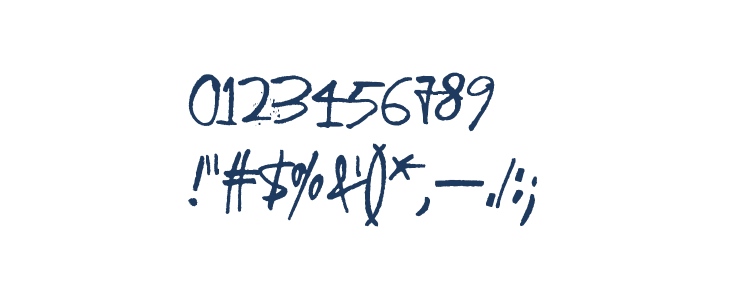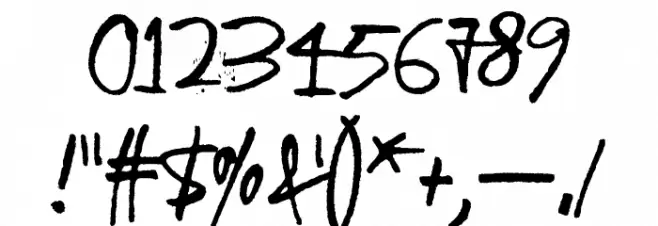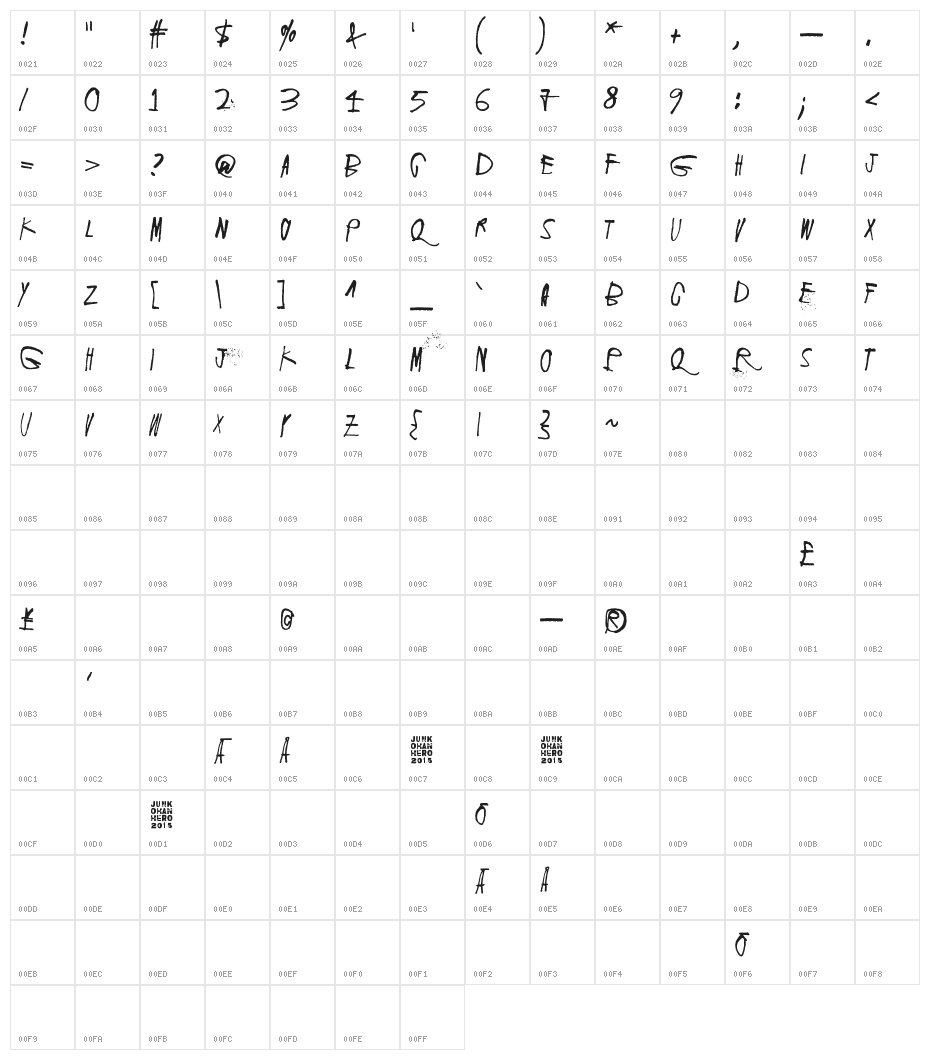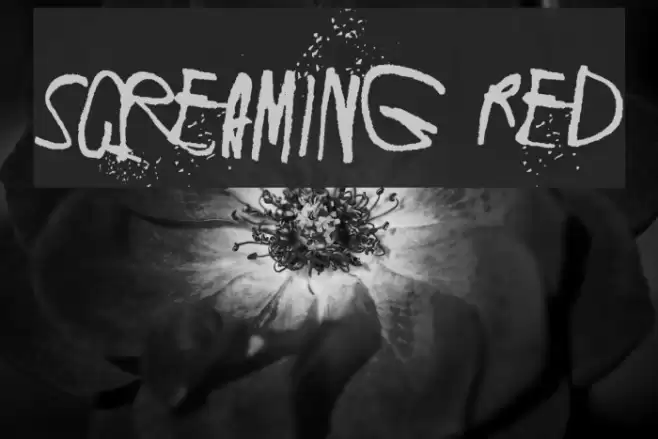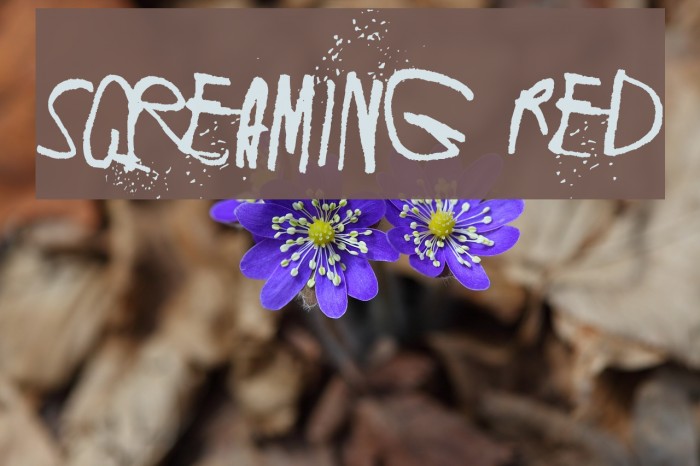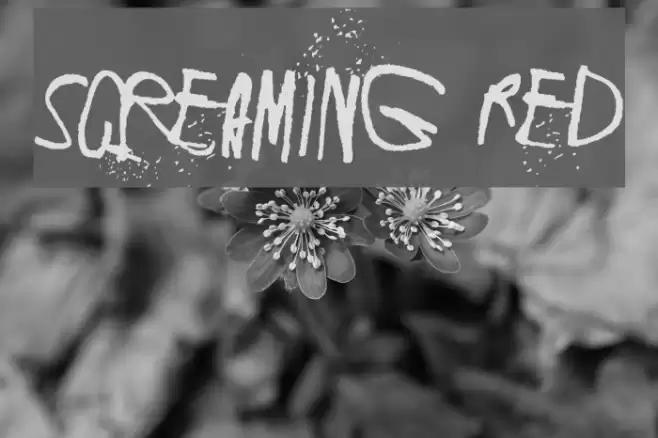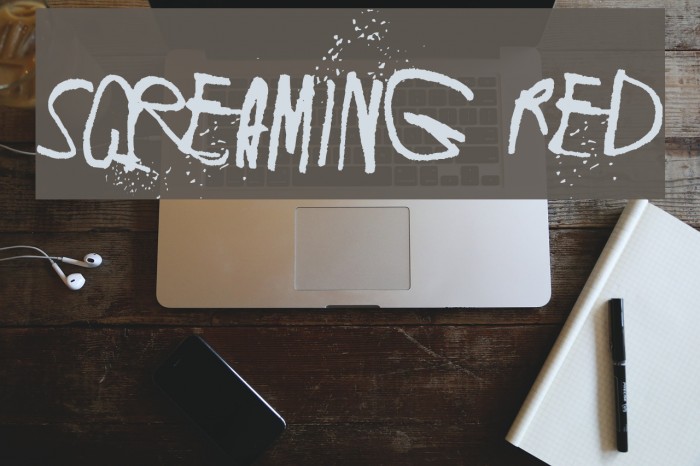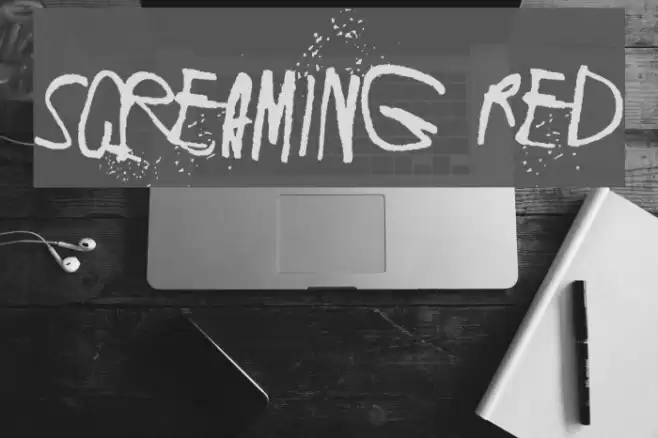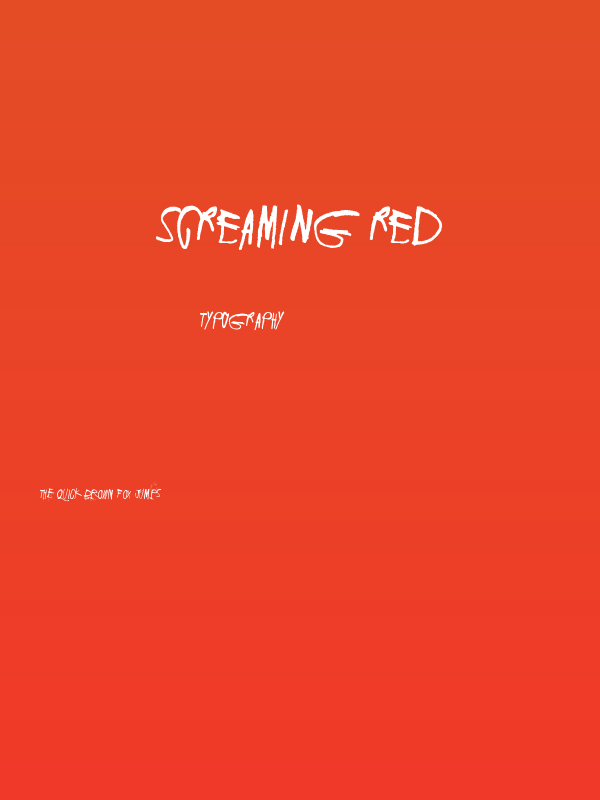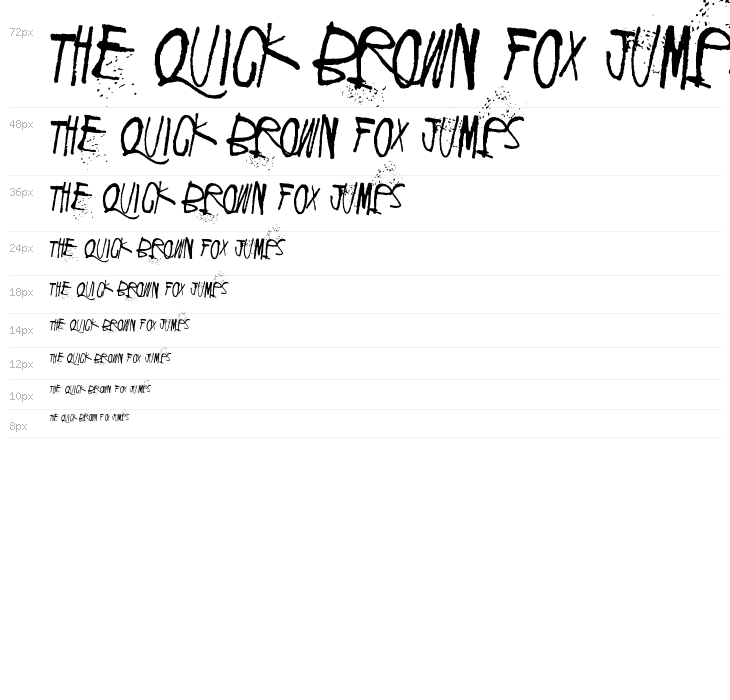
Screaming Red Font
Screaming Red Description
This font exudes a raw, expressive energy with its bold, brush-like strokes and irregular, hand-drawn appearance. The letters are dynamic and slightly chaotic, with varying thicknesses and a sense of movement that suggests urgency and emotion. The uppercase and lowercase letters maintain a consistent style, with some characters featuring splatters and rough edges that enhance the font's gritty, rebellious aesthetic. The numbers and special characters follow suit, adding to the overall cohesive yet unpredictable feel. This font is perfect for projects that require a bold statement or an edgy, artistic touch.
Overall StyleModern, Edgy
Use CaseHeadlines, Logos, Artistic projects
Proposed ProjectsIdeal for album covers, streetwear branding, graffiti art, and edgy poster designs.